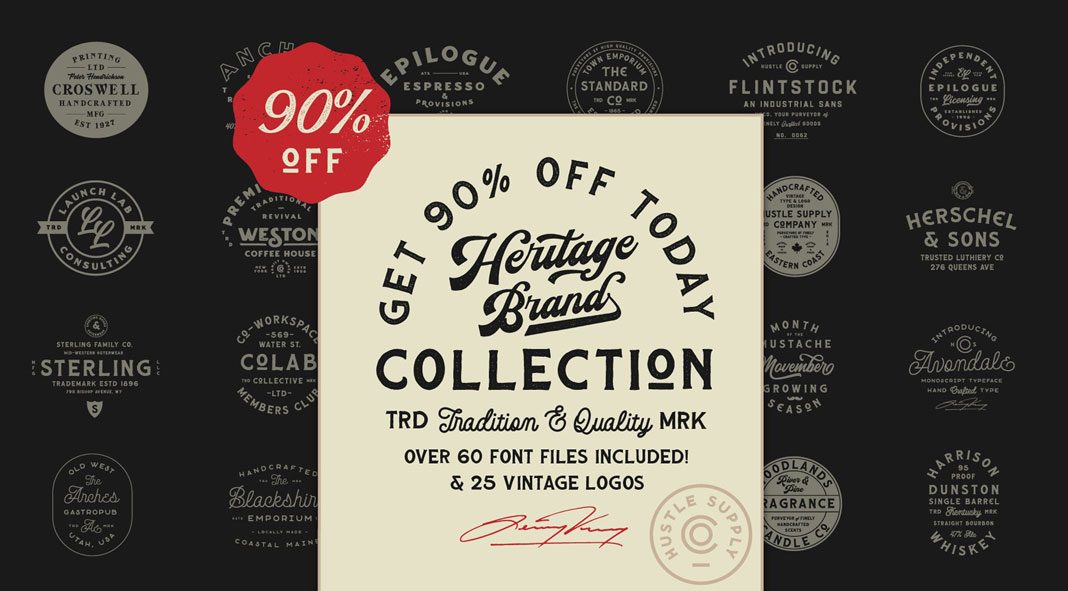
Download over 60 handmade font files and 25 vintage logo templates created by Hustle Supply Co.
The Heritage Brand Collection — 60+ font files and 25 vintage logo templates from Hustle Supply Co.
The Heritage Brand Collection: 60+ font files and 25 vintage logo templates from Hustle Supply Co.
The Heritage Brand Collection — 60+ font files and 25 vintage logo templates from Hustle Supply Co.
The Heritage Brand Collection: 60+ font files and 25 vintage logo templates from Hustle Supply Co.